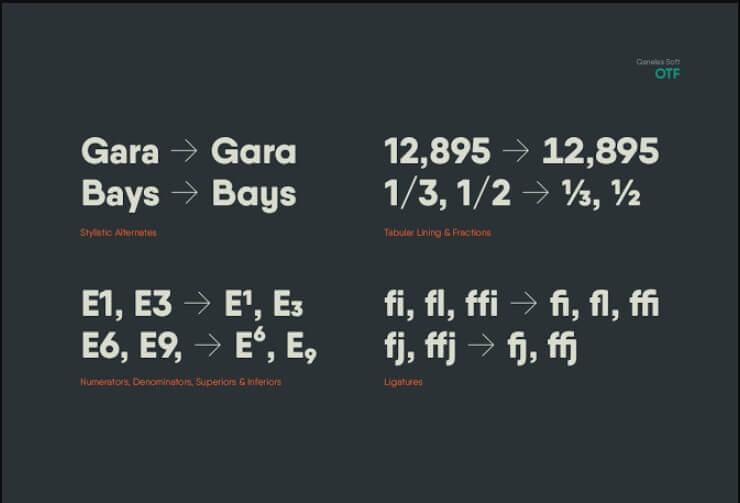
Qanelas Soft Font
Qanelas Soft Font is my favourite font to apply on a blog or website. It looks neat and is optimized for print, net, and mobile interfaces. its a soft style font that display your content is simple and unique.
To open soft font is pleasant applicable for heading, but, can be used for frame content without a glitch. And it pairs great with oswald and montserrat. This font is also used in simplifica font bold content.
Style Of Qanelas Soft Font